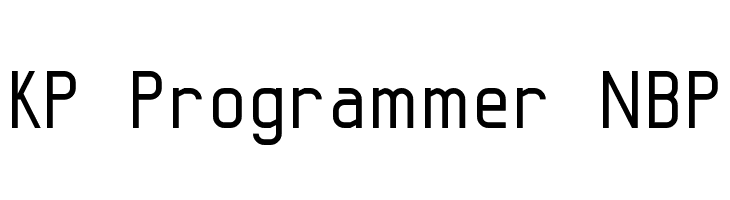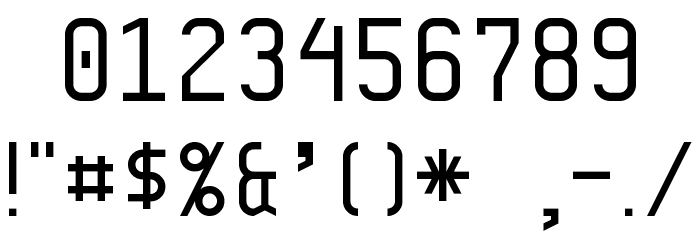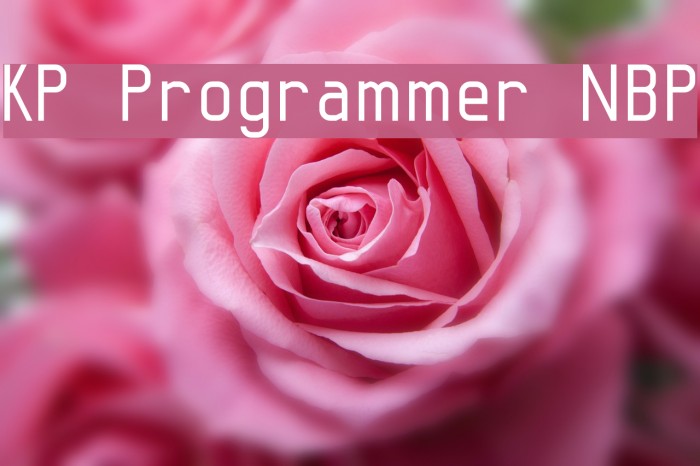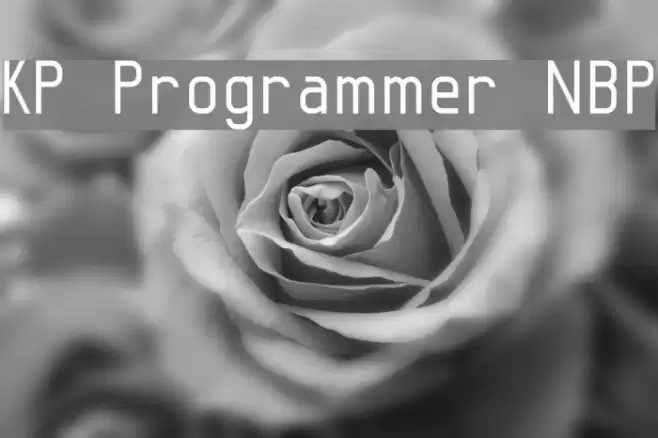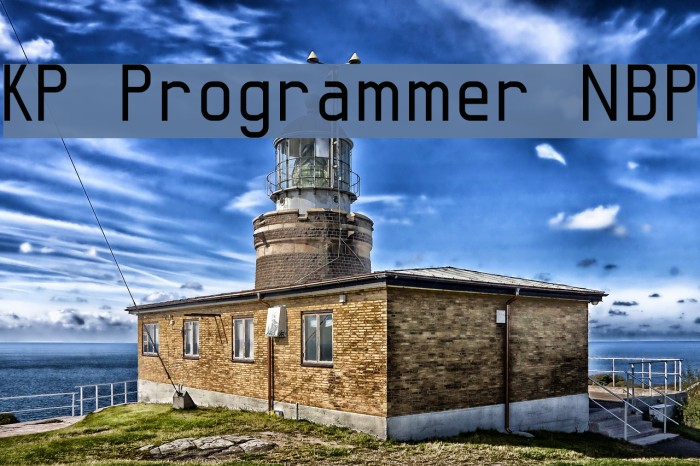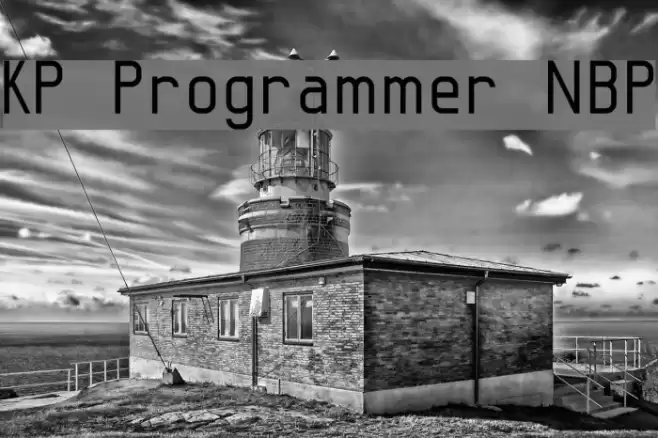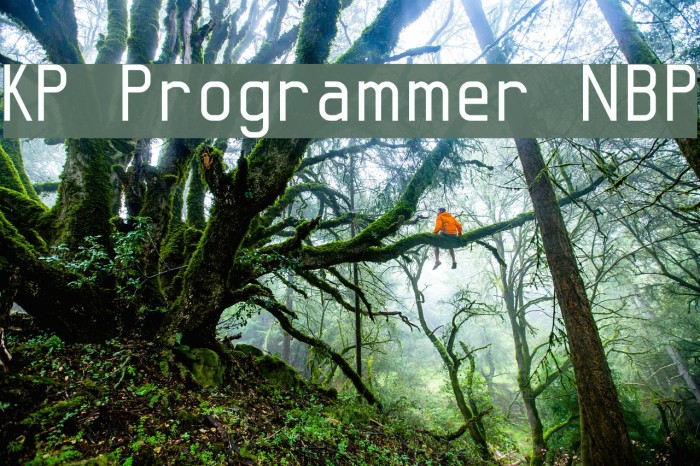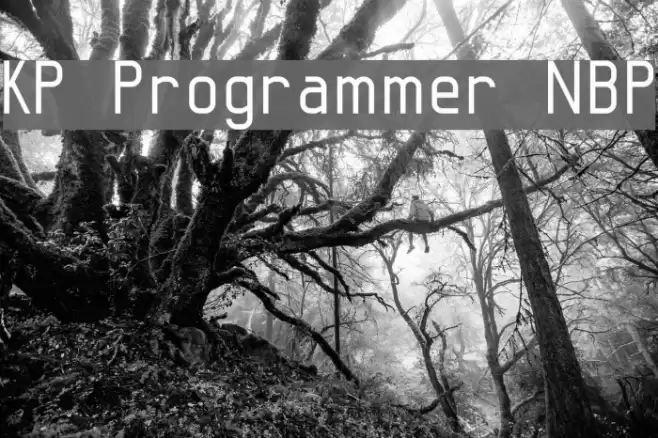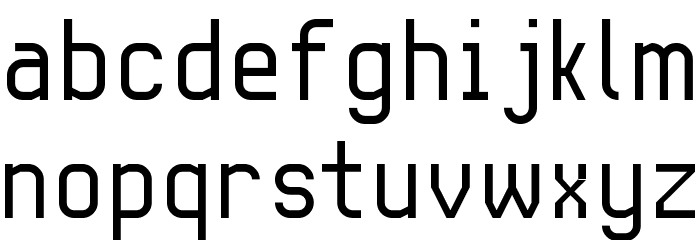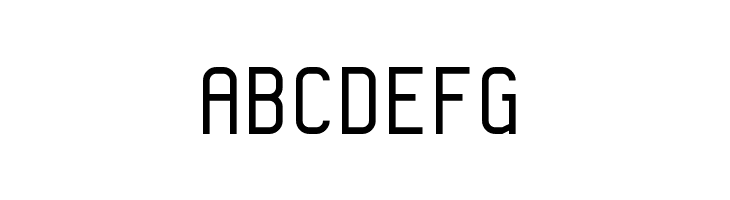
KP Programmer NBP Font
KP Programmer NBP Description
This font features a clean, geometric design with a monospaced structure, making it ideal for programming and technical applications. The characters are evenly spaced, providing a uniform appearance that enhances readability. The uppercase letters are bold and structured, while the lowercase letters maintain a consistent height and width, contributing to the font's balanced aesthetic. The numerals are clear and distinct, ensuring they stand out in any context. Special characters are well-defined, supporting a wide range of uses in coding and data representation.
| Use Case | Headlines, Body text, Logos, Coding |
| Proposed Projects | Suitable for coding environments, technical documentation, and data visualization projects. |